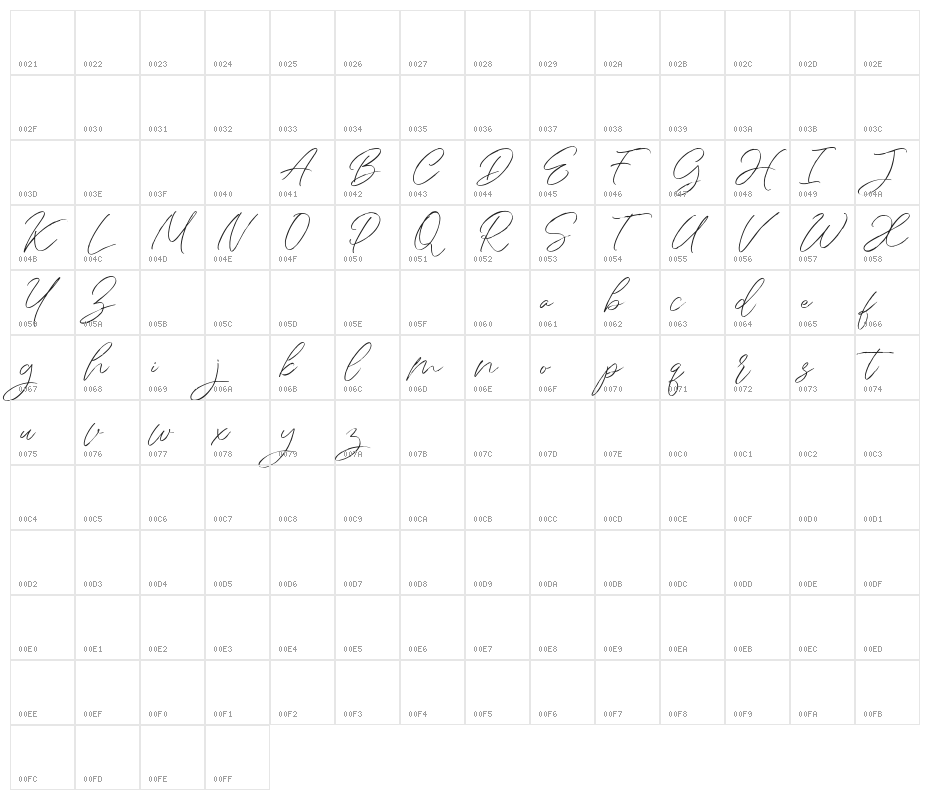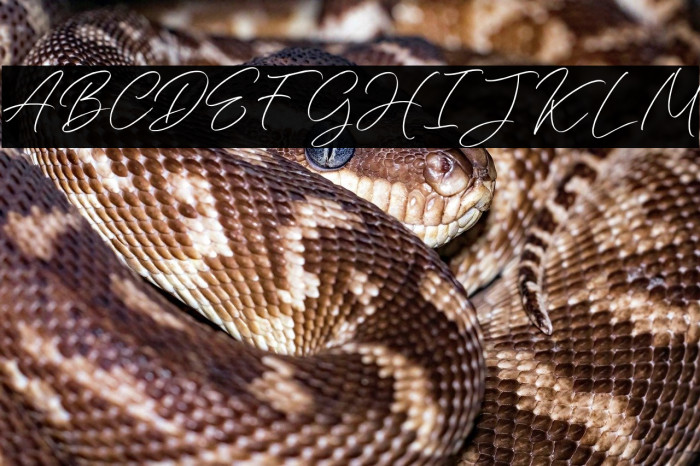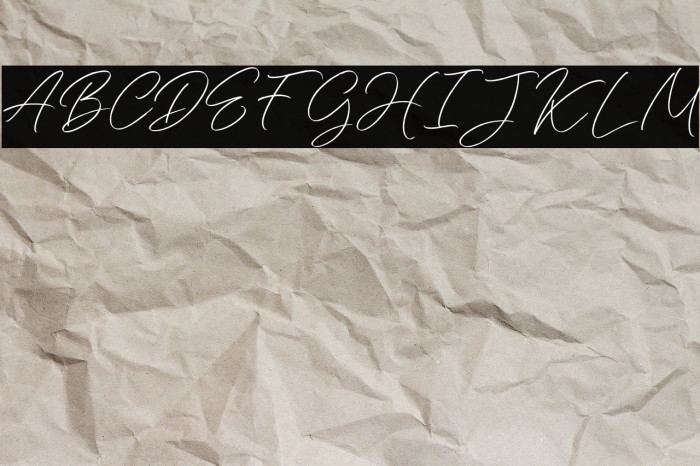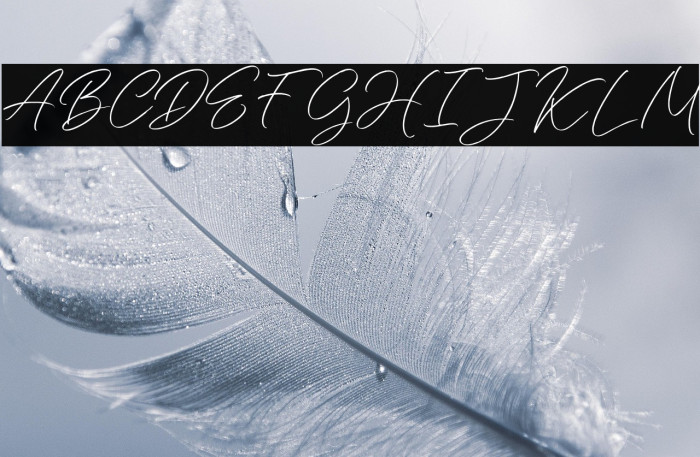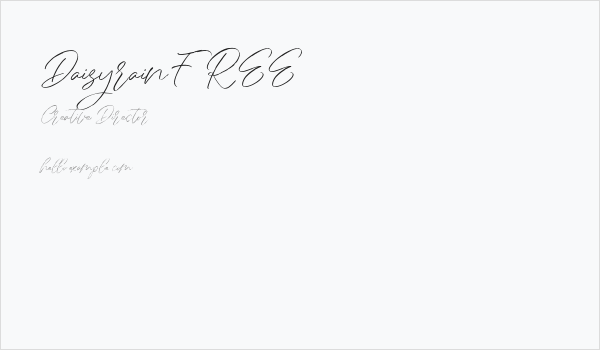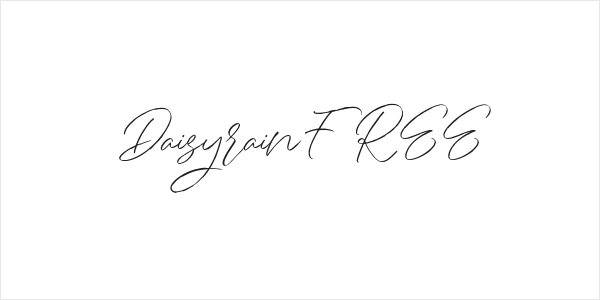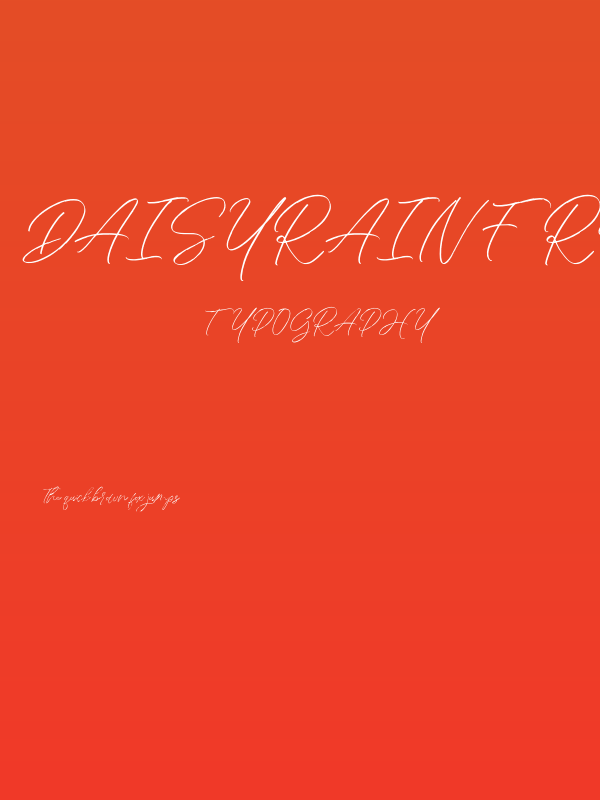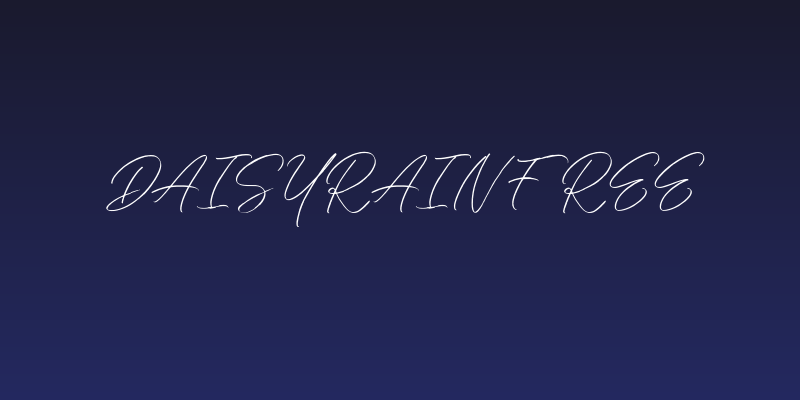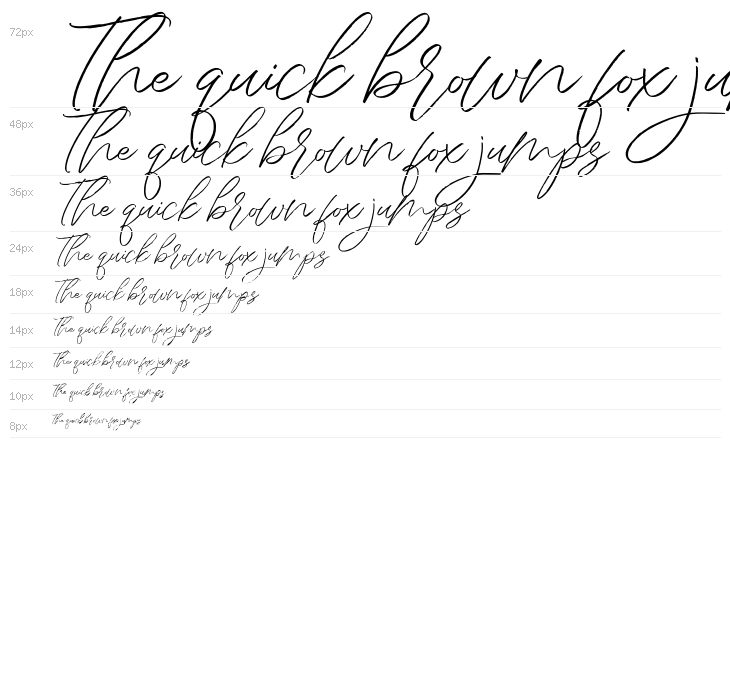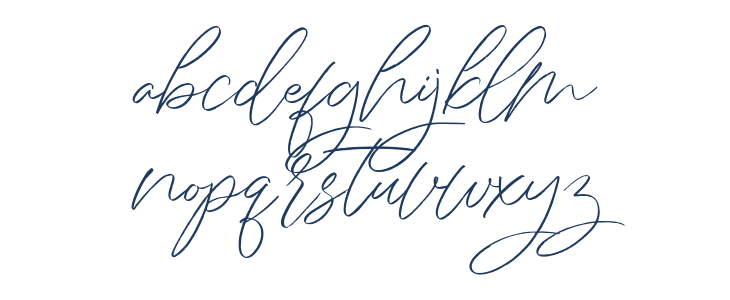
DaisyrainFREE Font
DaisyrainFREE Description
This font features an elegant and flowing script style, characterized by its cursive, handwritten appearance. The letters are connected, creating a seamless and fluid look that mimics natural handwriting. The uppercase letters are slightly more formal, with graceful loops and curves, while the lowercase letters maintain a casual and approachable feel. The strokes are consistent in width, providing a balanced and harmonious aesthetic. This font exudes a sense of sophistication and charm, making it suitable for a variety of creative and decorative applications.
| Overall Style | Elegant, Decorative |
| Proposed Projects | Ideal for wedding invitations, greeting cards, branding, and personal stationery. |